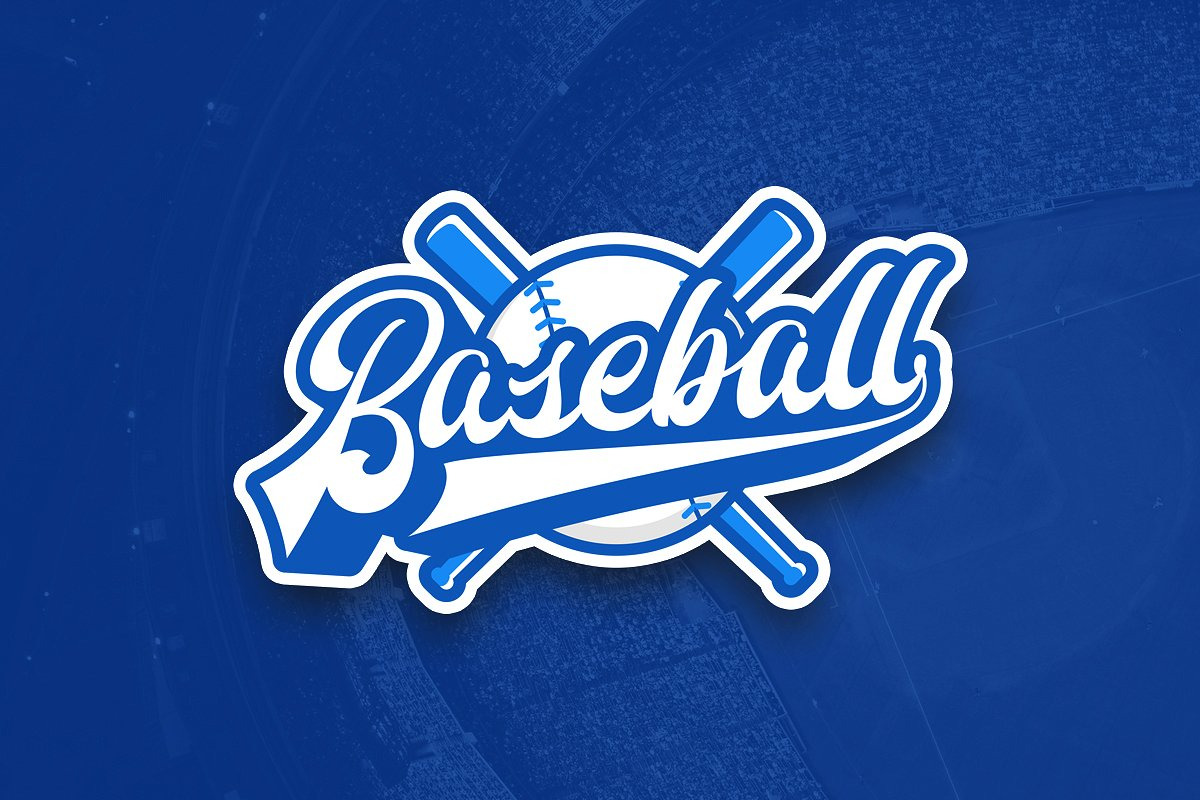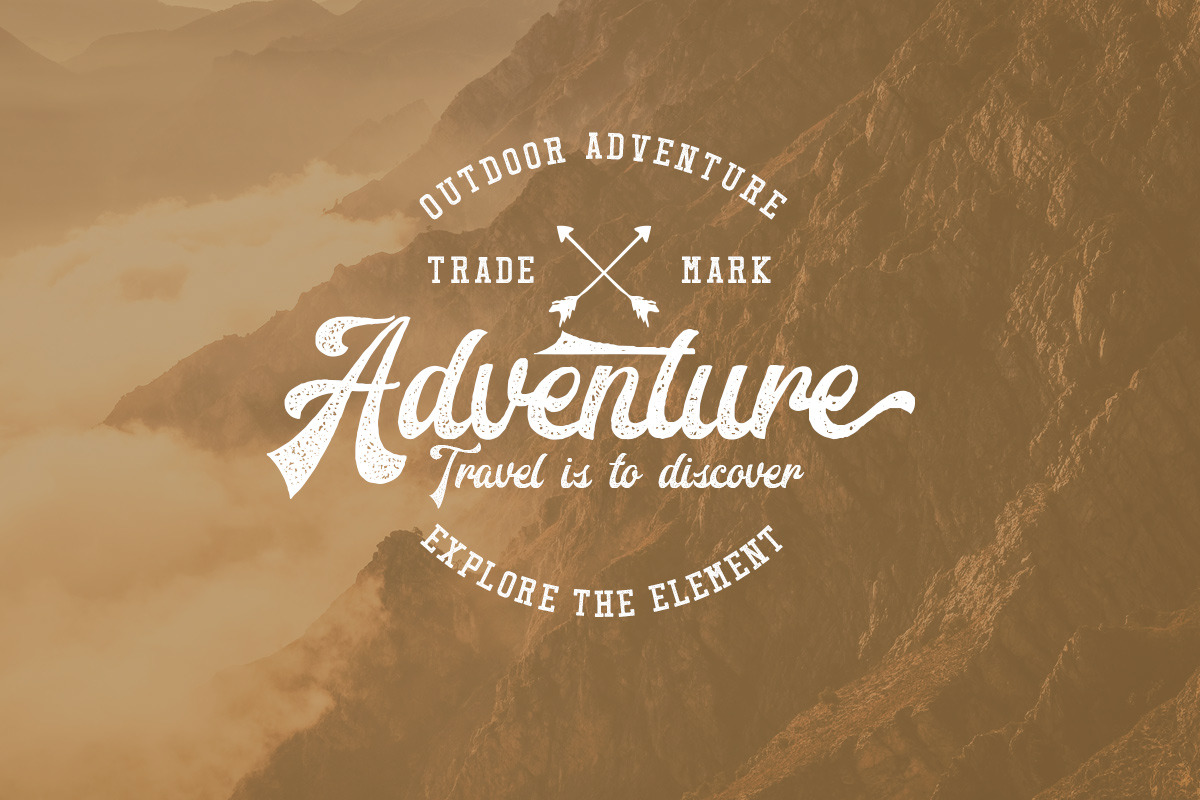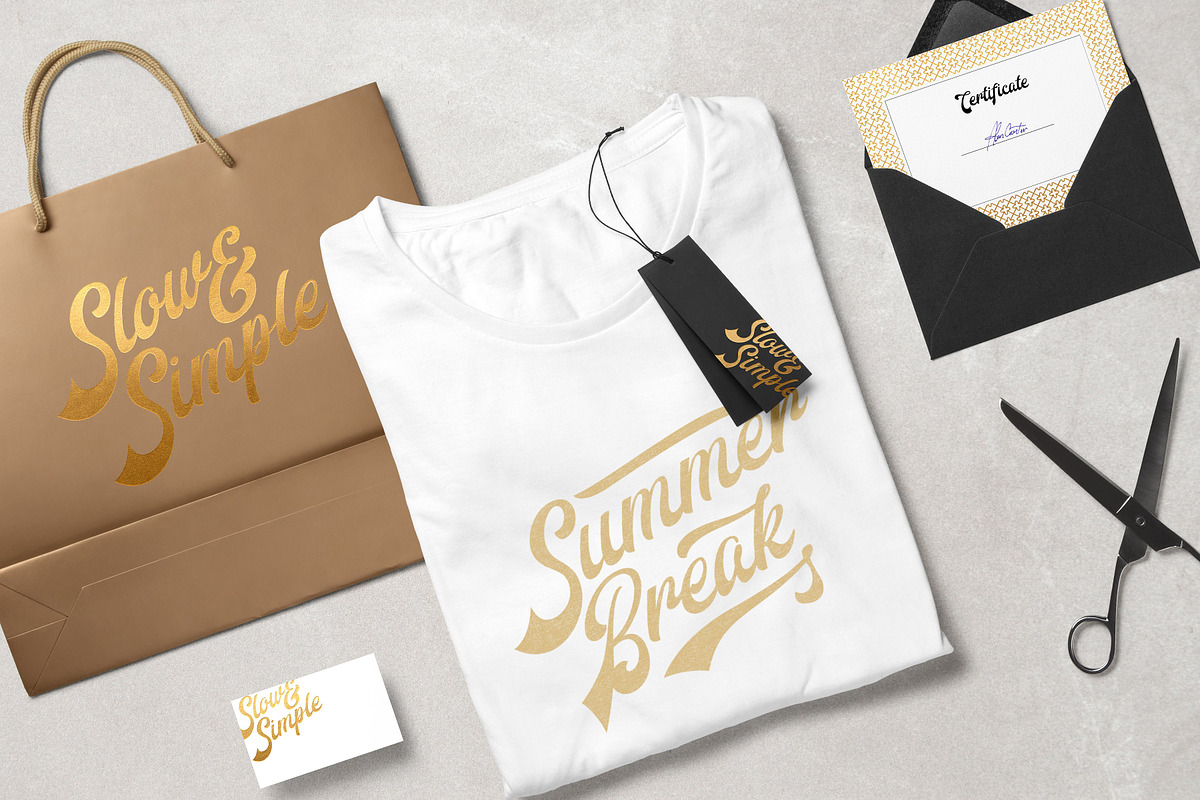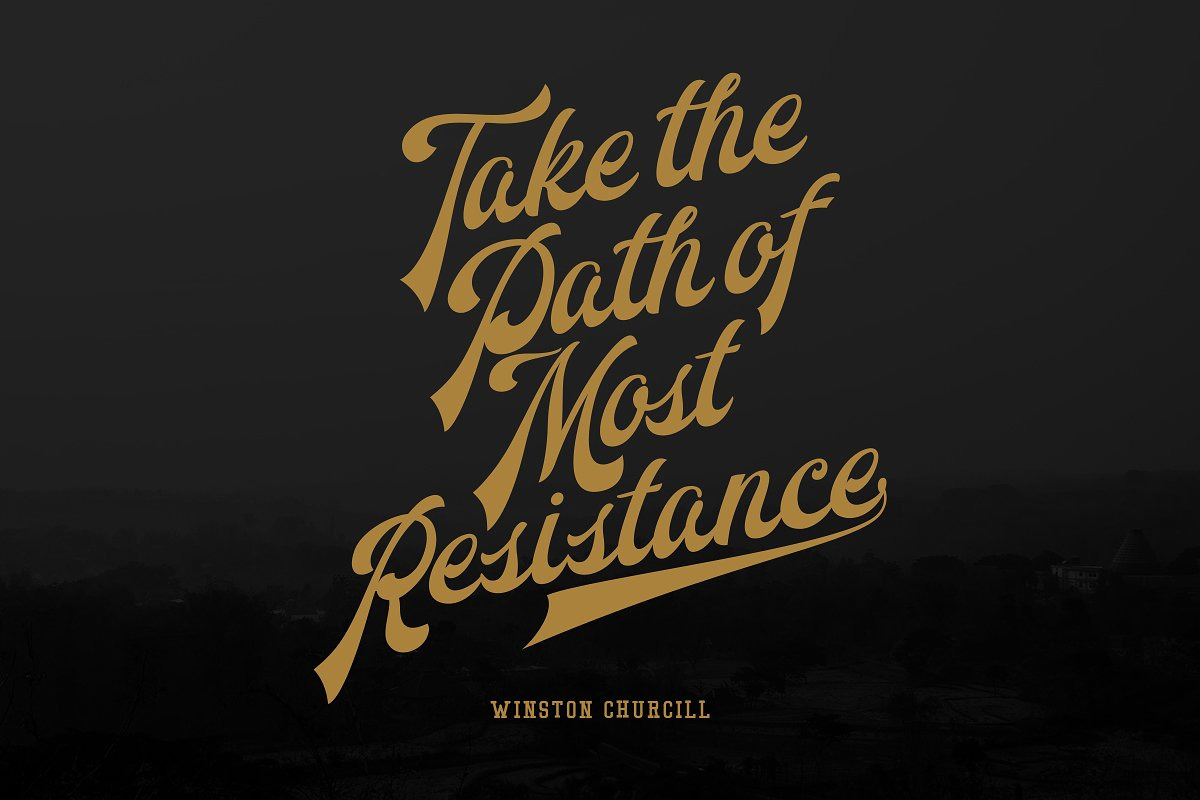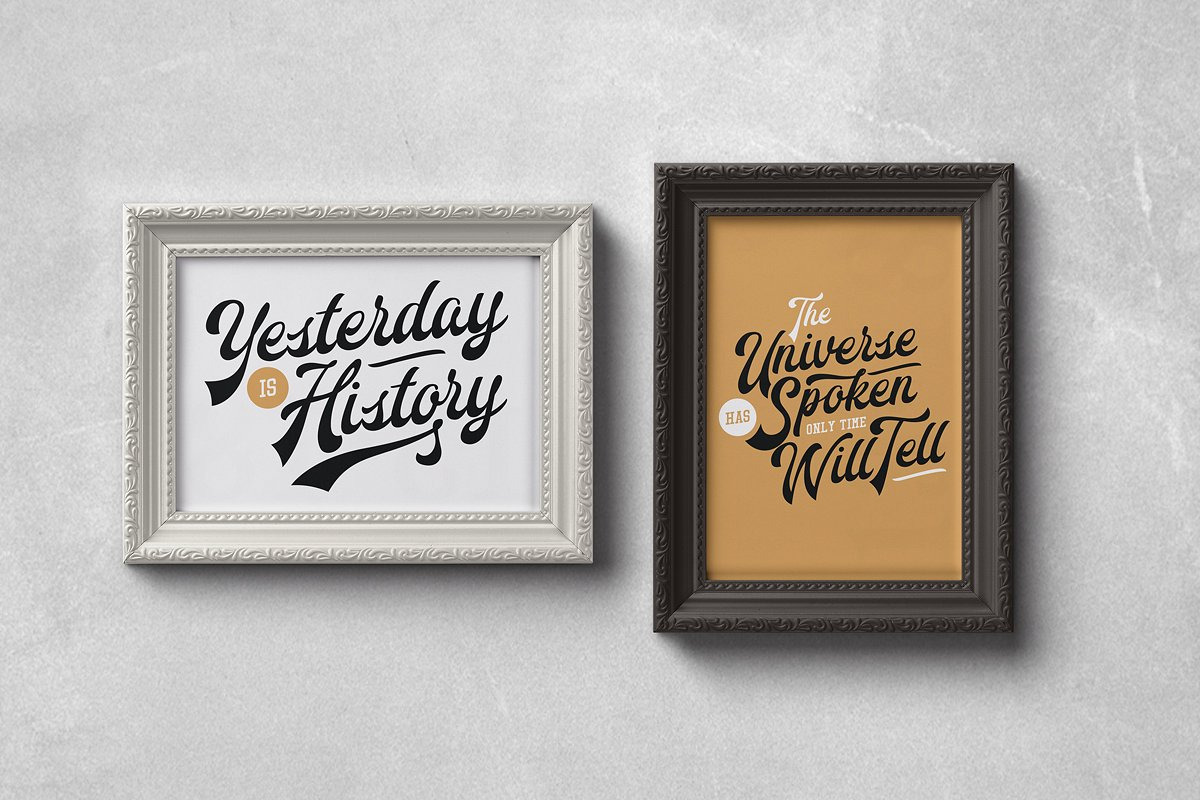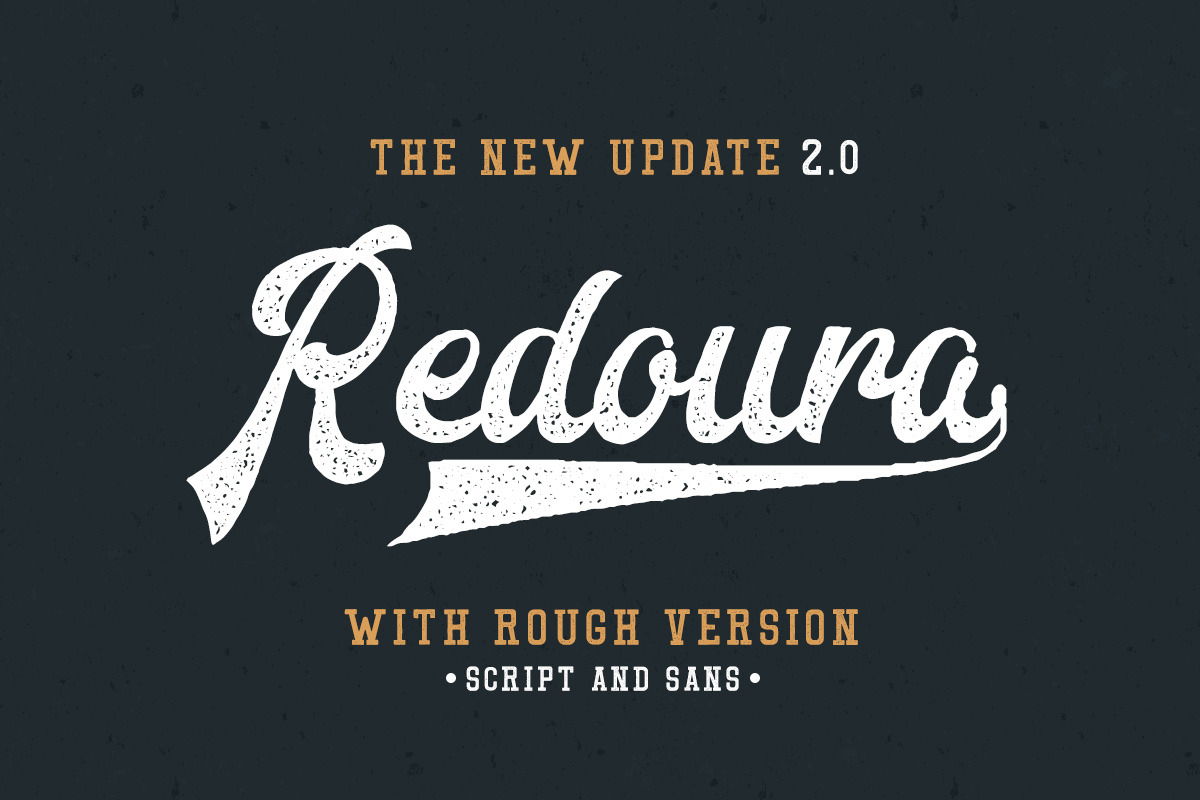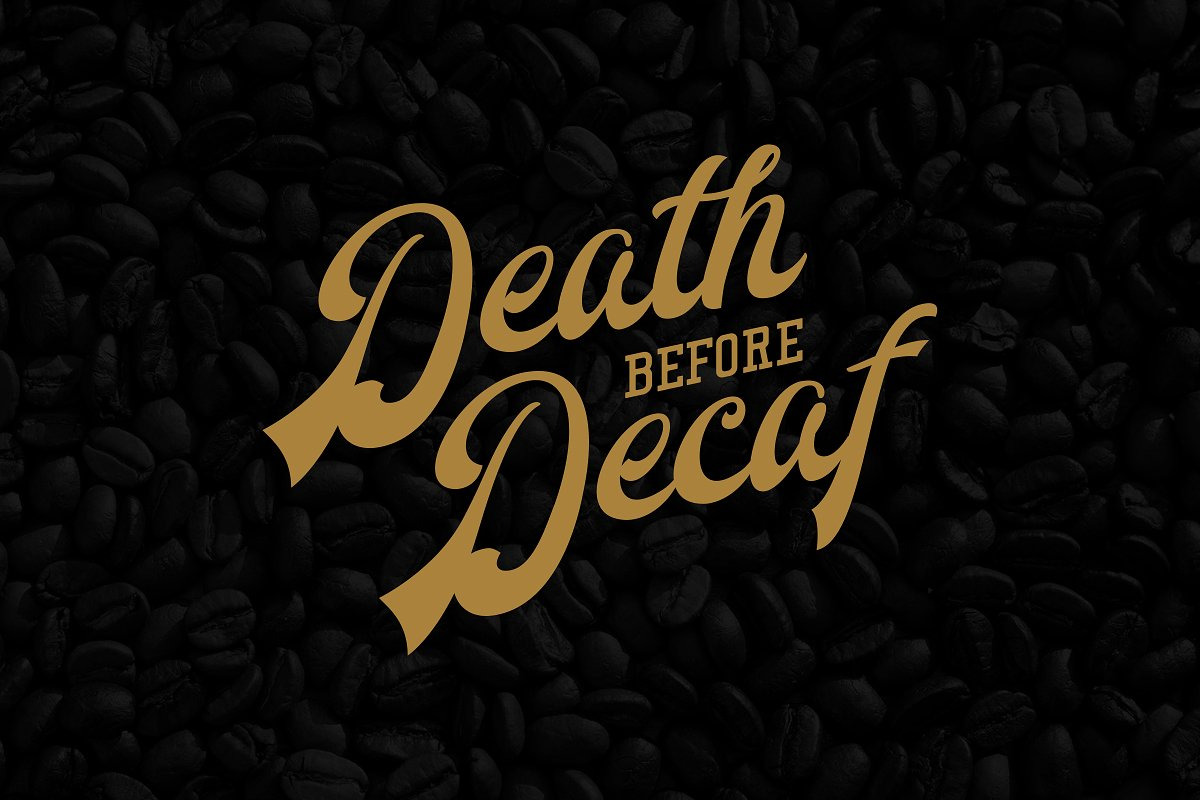
Redoura Font Duo
Redoura Font Duo by Letterhend Studio is a font selected for branding, posters, packaging, typography.
- The script font comes with a serif font as a perfect pairing font.
- Redoura Script font includes upper & lowercase characters, punctuation, numerals, and multilingual support.
- The script font comes with a serif font as a perfect pairing font.
- Redoura Script font includes upper & lowercase characters, punctuation, numerals, and multilingual support.
- It also has many open type alternates and ligatures.
Why Redoura Font Duo is worth a look
Redoura Font Duo by Letterhend Studio fits naturally into Branding, posters, packaging, typography.